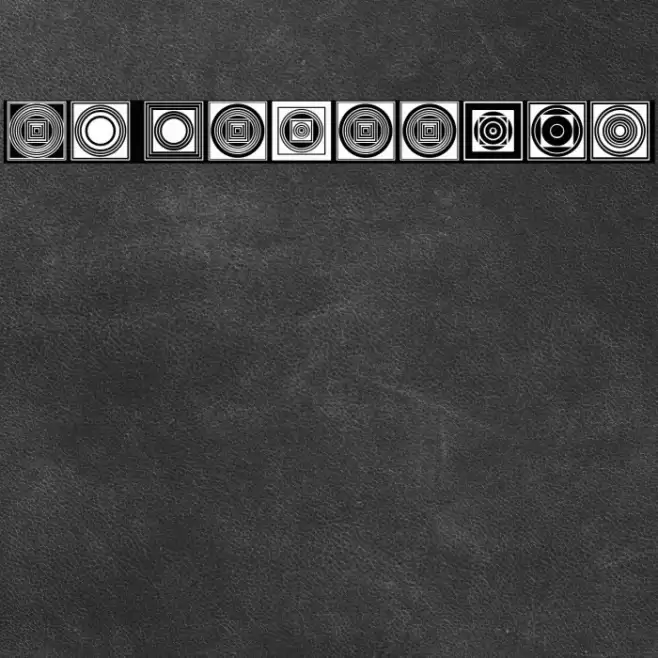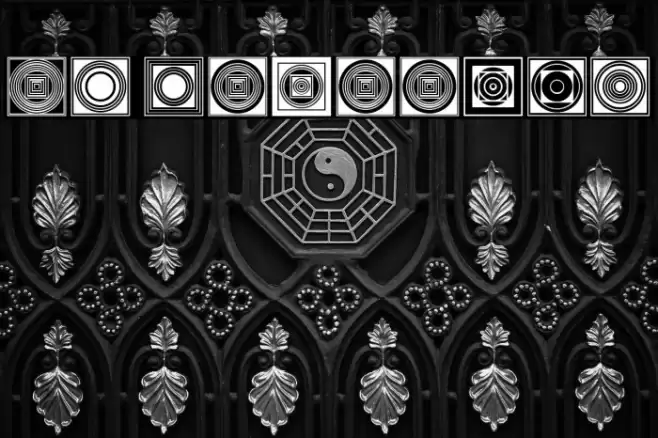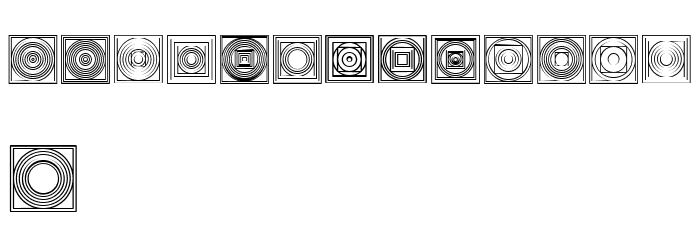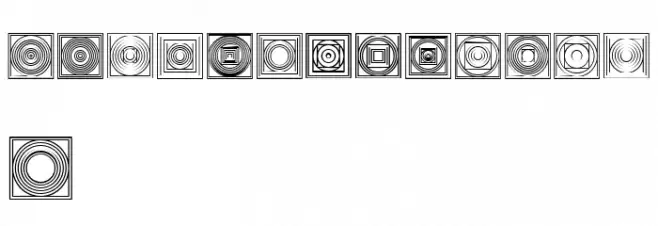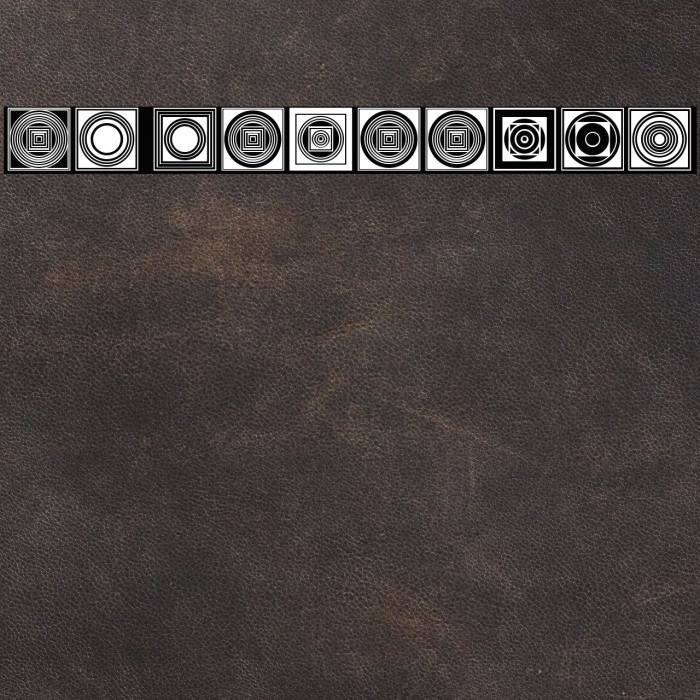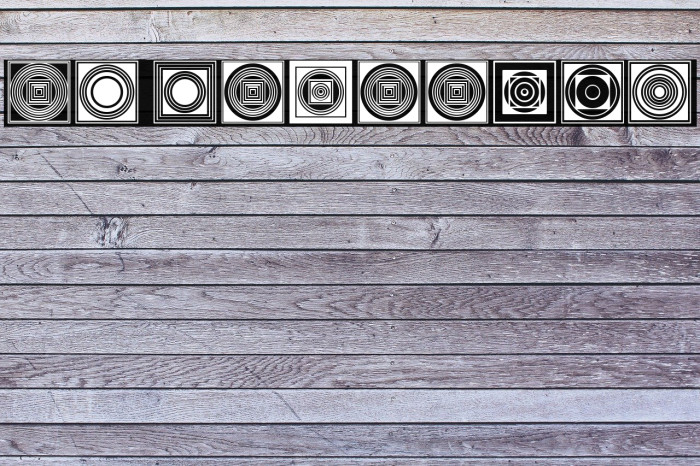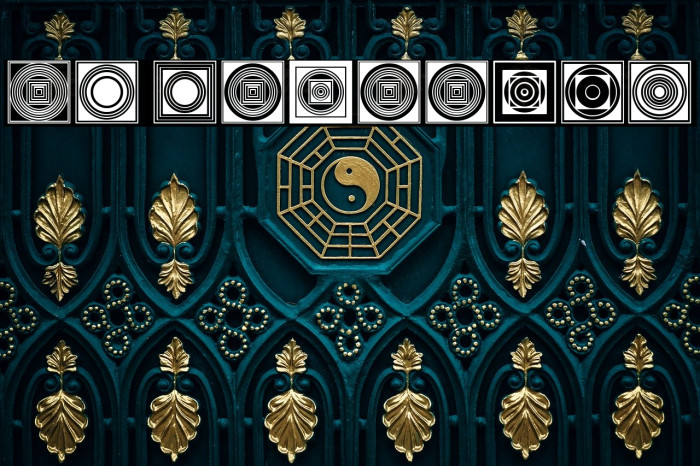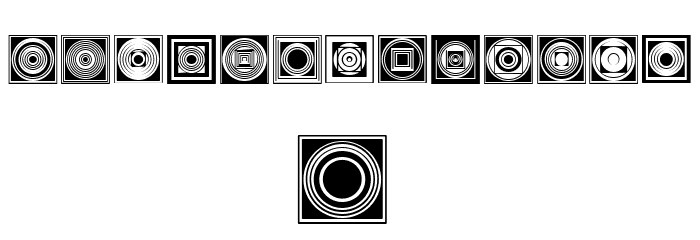
Enfeite Regular Font
Enfeite Regular Description
This font features a highly decorative and abstract design, characterized by intricate geometric patterns within each character. Each letter and symbol is enclosed in a square, with varying levels of complexity and detail. The design is reminiscent of optical illusions, with concentric shapes and lines creating a sense of depth and movement. The overall aesthetic is bold and striking, making it suitable for artistic and creative projects where a unique visual impact is desired.
A decorative font with intricate geometric patterns and optical illusion effects from Dingbats fonts.
- Proposed Projects: Ideal for artistic posters, album covers, modern art installations, and unique branding projects.
- Use Case: Logos, Posters, Artistic Projects